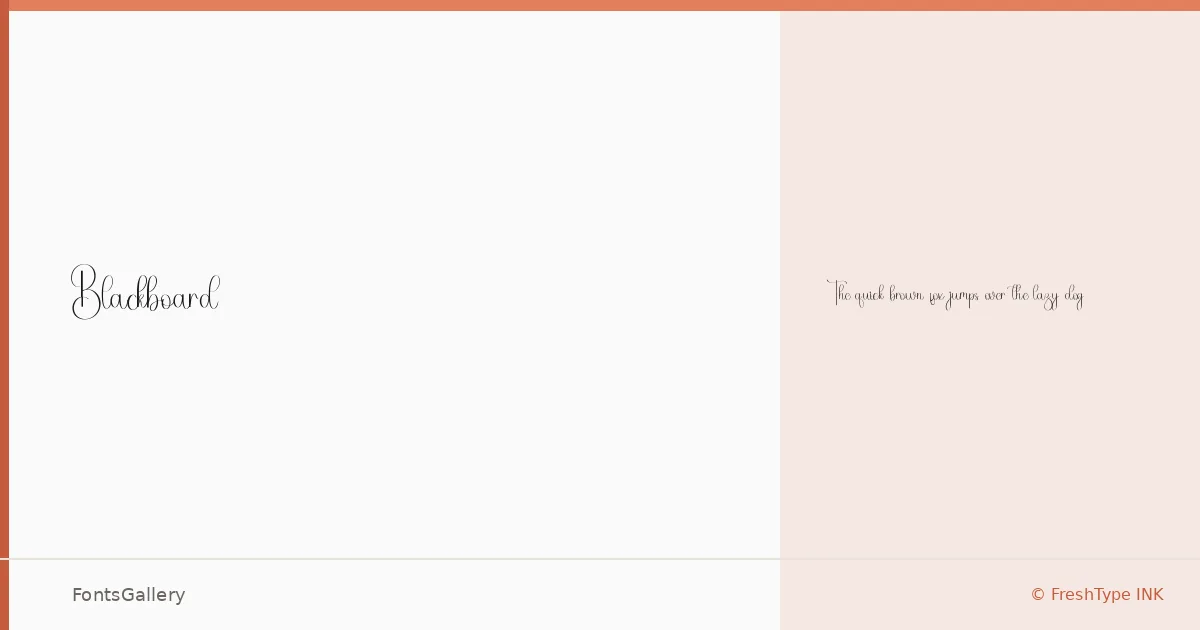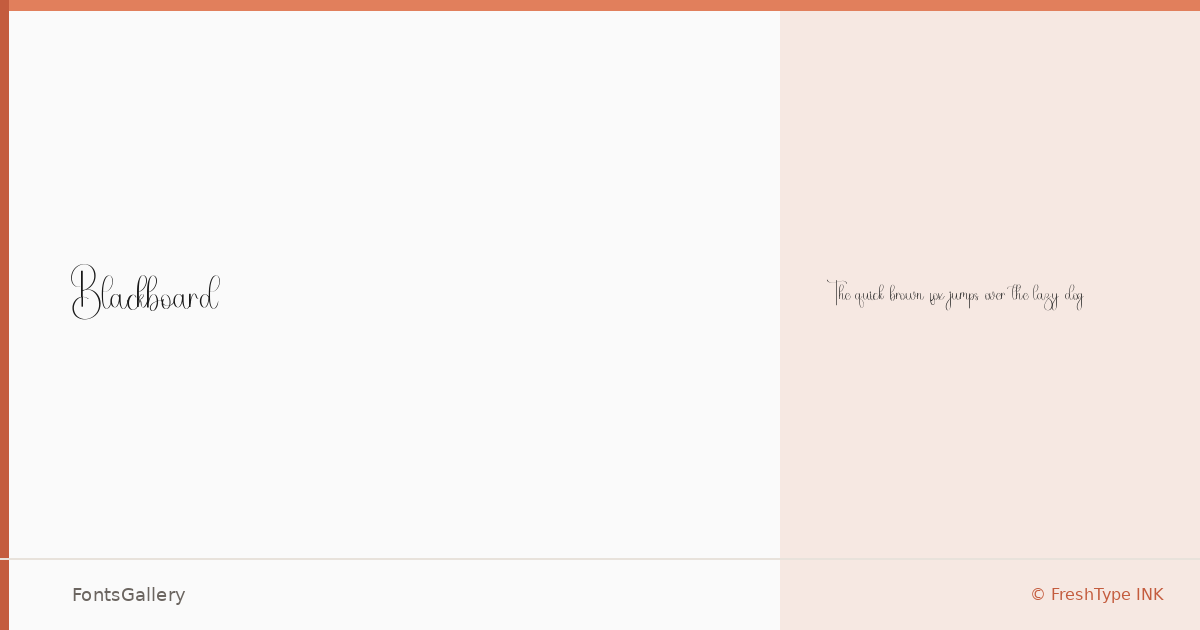
About Blackboard Font
There is a particular quality to this script — a studied elegance that sits somewhere between formal calligraphy and the kind of handwriting you find on an old invitation tucked inside a book. Released by FreshType INK, it arrives as a single Regular weight in both TTF and OTF formats, keeping the offering focused and intentional.
The script carries a classic, romantic character with strokes that feel unhurried and considered — the sort of letterforms that read as luxury without shouting it. Flowing connections and carefully balanced proportions give it a genuinely elegant atmosphere, whether set large as a display headline or used more delicately in a smaller context. The single cut means what you see is what the design intends: no interpolation, no compromise.
It earns its place on wedding stationery, invitation cards, and greeting cards where that romantic, handcrafted warmth matters. In branding and logo work it brings a sense of heritage and refinement. The Latin character set keeps it suited to projects in that language range. For contrast, it pairs well with clean, neutral companions like Helvetica or Alexandria, and sits naturally alongside other expressive faces such as Aresink, Bizantheum, and Canela.